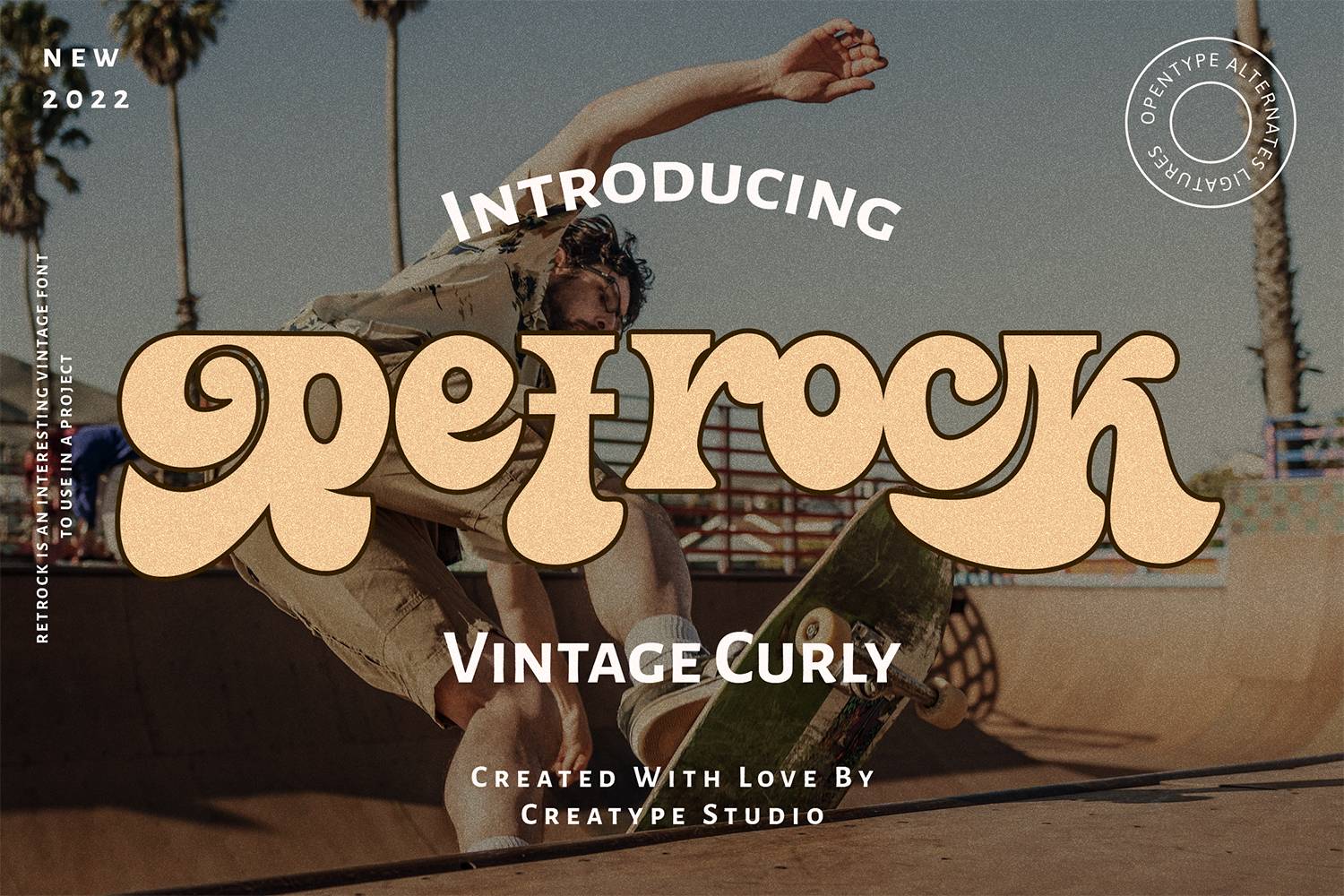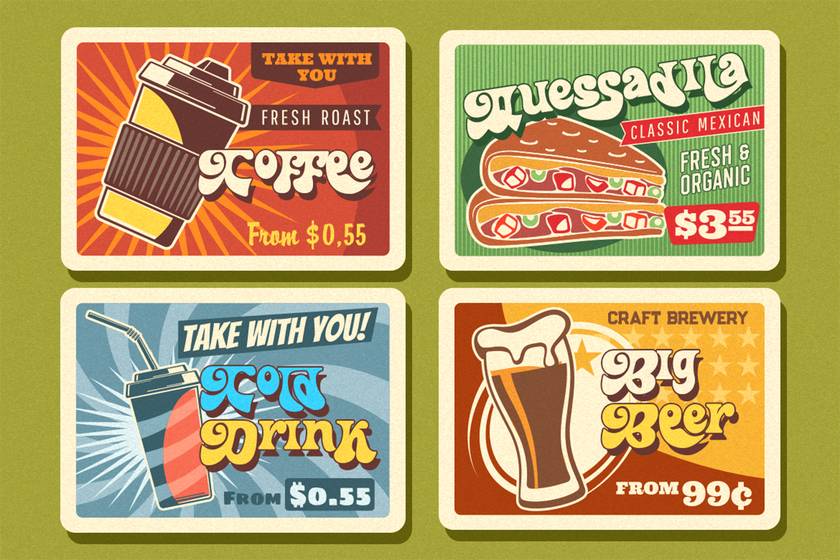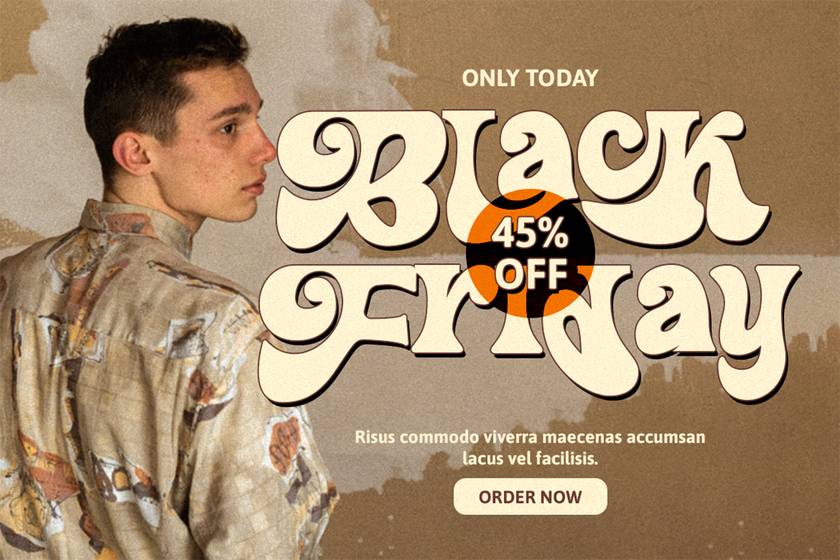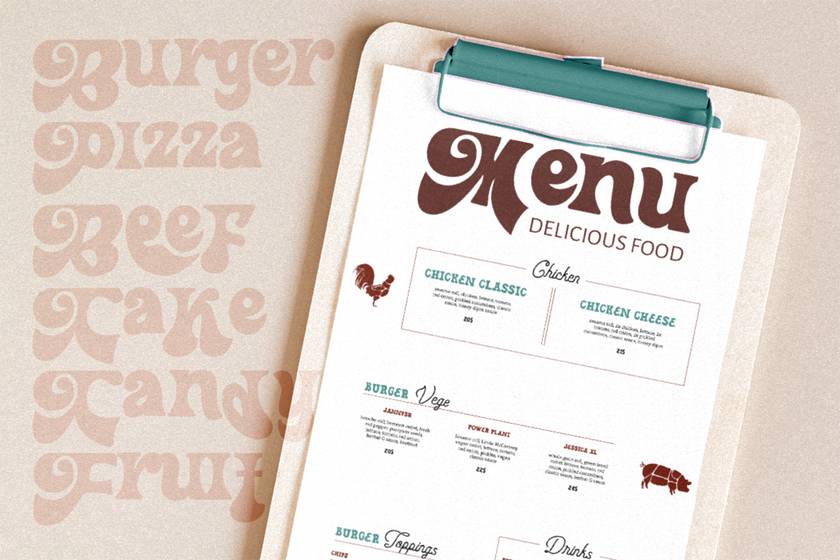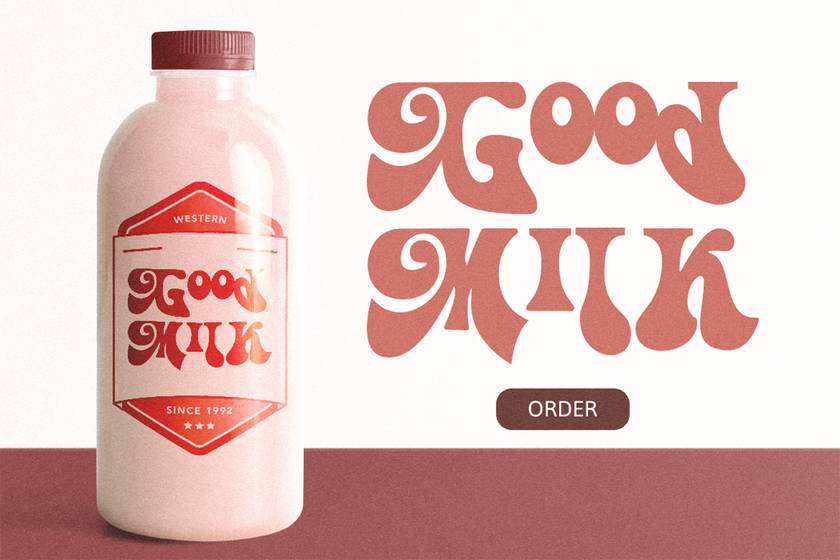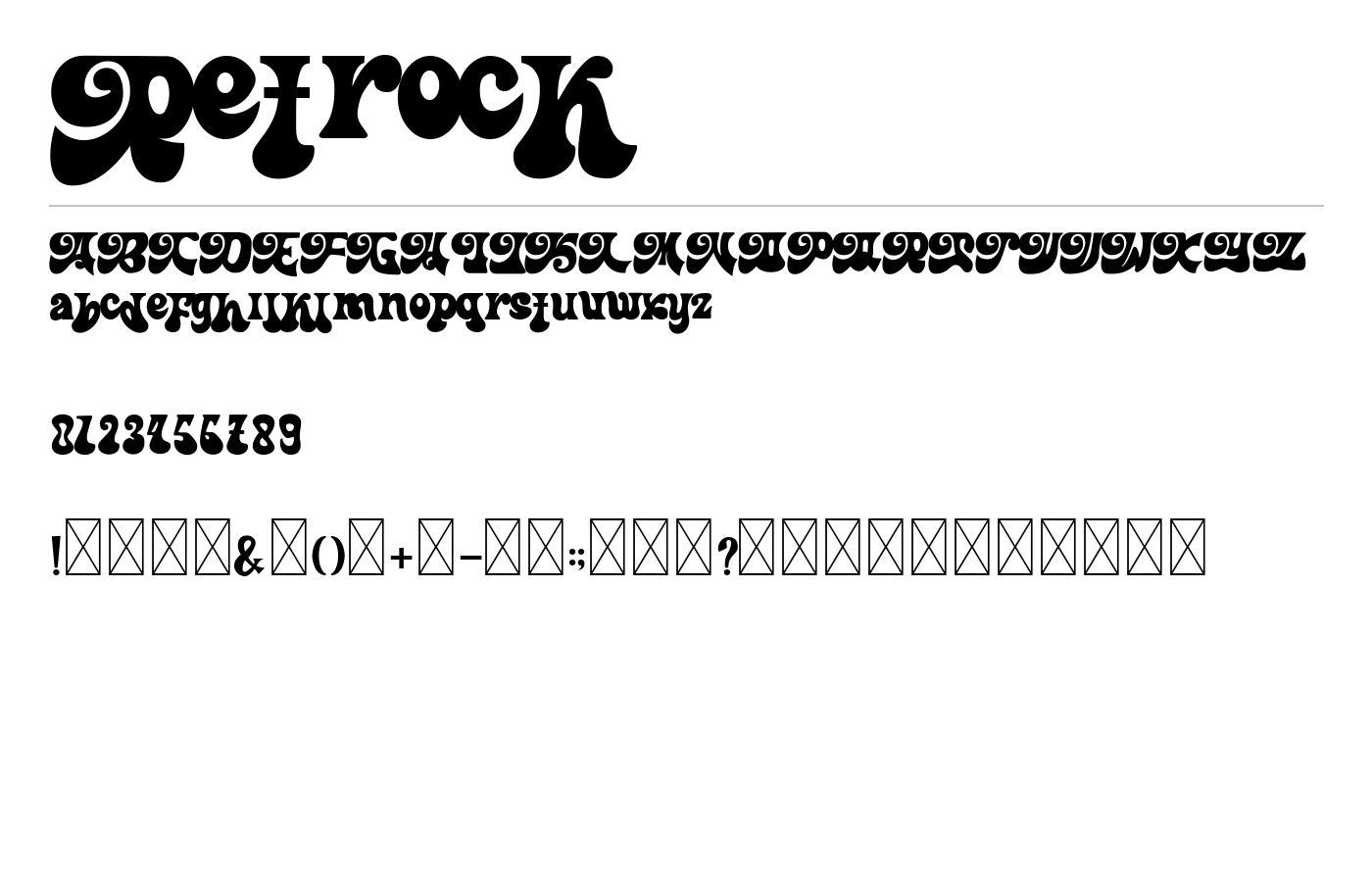
Retrock is a bold, decorative serif font with a strong retro vibe, featuring thick, rounded serifs and playful, exaggerated curves that evoke a 1970s psychedelic style. Its heavy weight and unique, swirling letterforms make it perfect for eye-catching headlines, logos, and creative projects that want to capture a vintage, fun, and energetic mood. This font works best in display settings where its distinctive character can shine without sacrificing legibility.